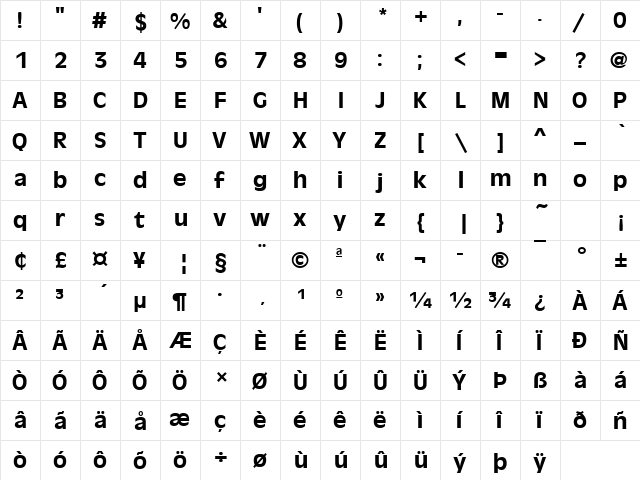
Antigoni Med Regular
| Foundry | MGI Software |
Design Context for Antigoni Med Typeface
Antigoni Med takes a measured approach to typography — its balanced proportions and neutral character make it a reliable workhorse for both digital and print work.